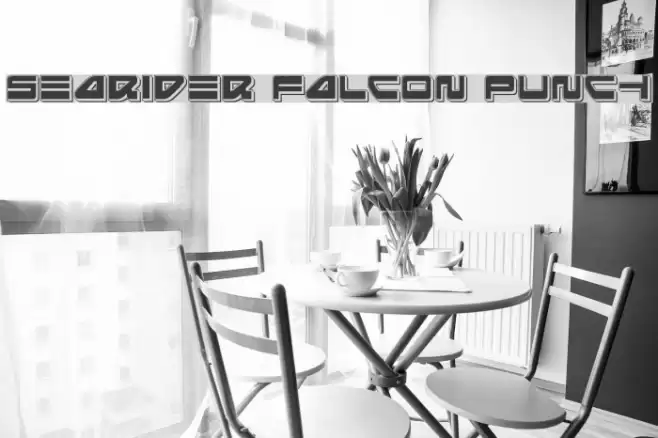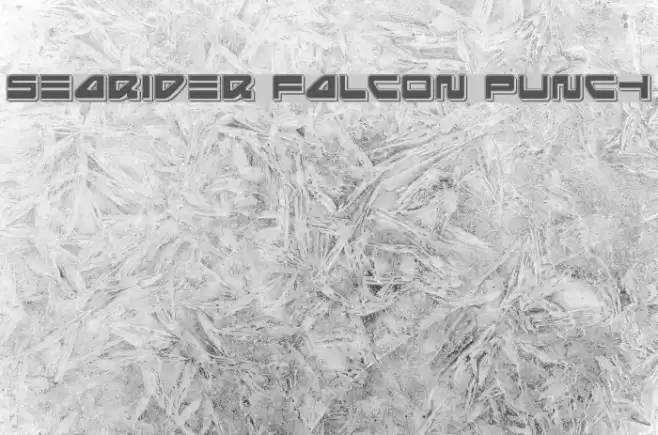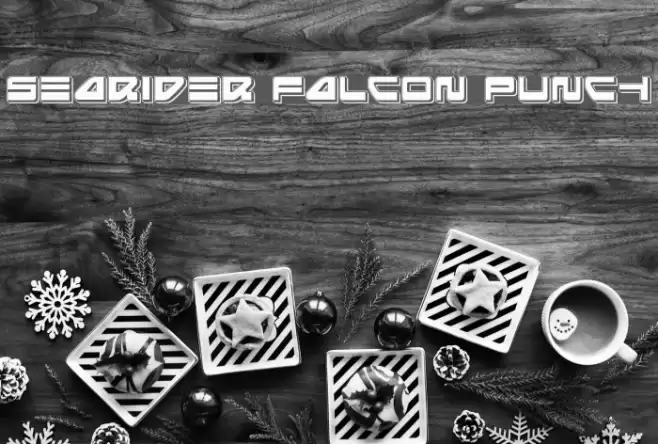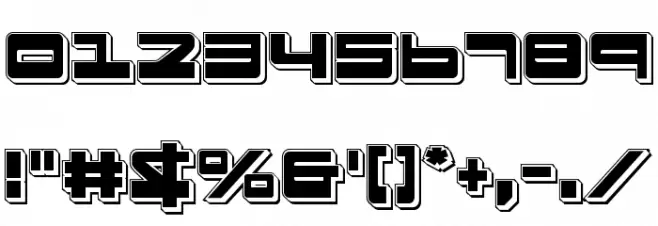
Searider Falcon Punch Font
Searider Falcon Punch Description
This font features a bold, futuristic design with a strong geometric structure. The characters are outlined with a thick border, giving them a three-dimensional appearance. The angular shapes and sharp edges contribute to a modern, tech-inspired aesthetic. Each letter and number is distinct, with a consistent style that maintains readability while offering a unique visual impact. The special characters are designed to match the overall theme, ensuring a cohesive look across all glyphs.
A bold, futuristic font with geometric, tech-inspired design from Uncategorized fonts.
- Proposed Projects: Ideal for sci-fi themed projects, video game titles, tech branding, and futuristic posters.